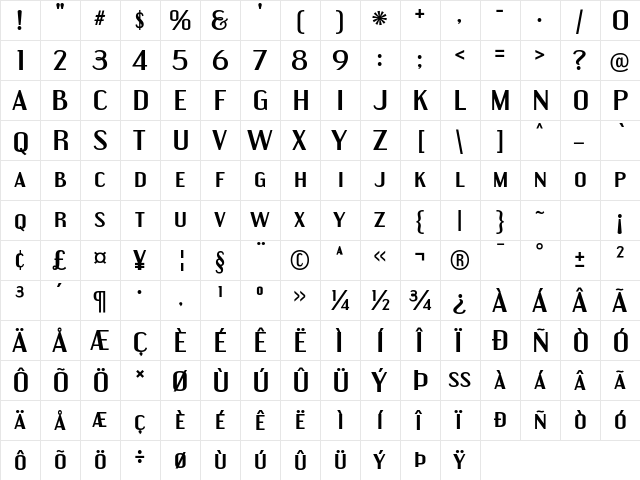
Engebrechtre Expanded Bold
Design Context for Engebrechtre Typeface
Engebrechtre takes a measured approach to typography — its balanced proportions and neutral character make it a reliable workhorse for both digital and print work. Its bold stroke weight gives it real presence on the page.
Pro Tip: Pair Engebrechtre with a font of contrasting weight or personality to build a more expressive typographic hierarchy.